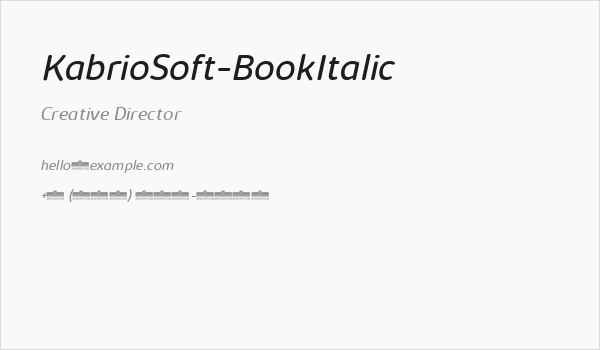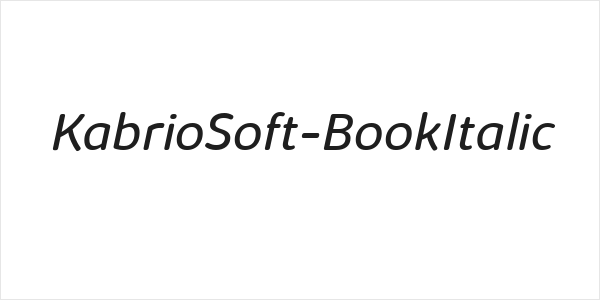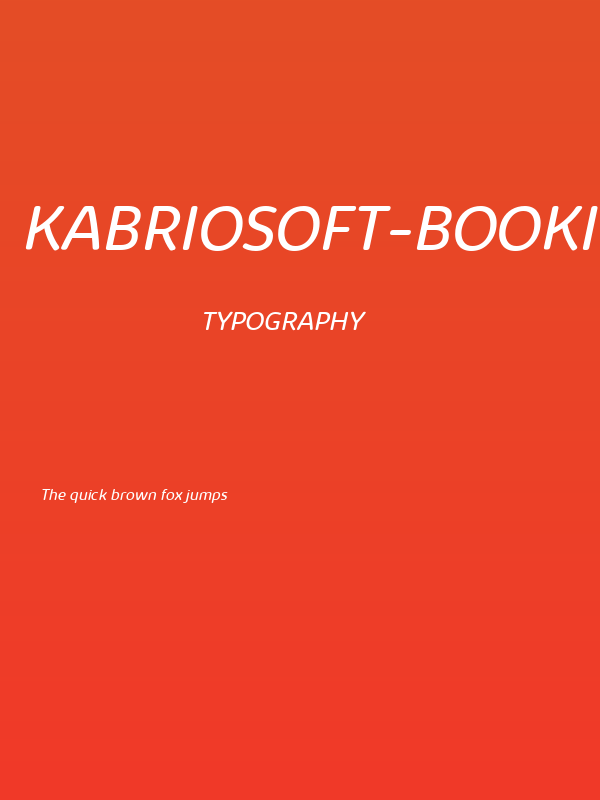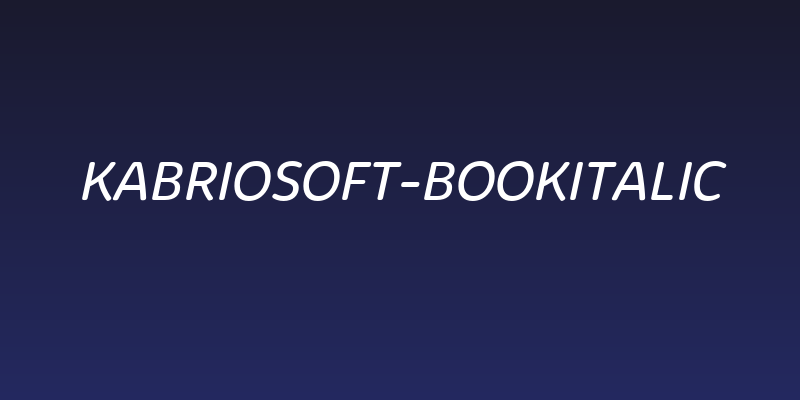
KabrioSoft-BookItalic Font
KabrioSoft-BookItalic Description
This font features a sleek and modern design with a slight italic slant, giving it a dynamic and forward-moving appearance. The characters are well-proportioned with a consistent stroke width, contributing to a clean and legible look. The uppercase and lowercase letters maintain a harmonious balance, while the numerals and special characters are crafted to complement the overall style. The font's smooth curves and subtle angles make it suitable for a variety of design applications, offering both elegance and readability.
| Proposed Projects | Ideal for branding, advertising, and editorial design projects that require a contemporary and sophisticated touch. |